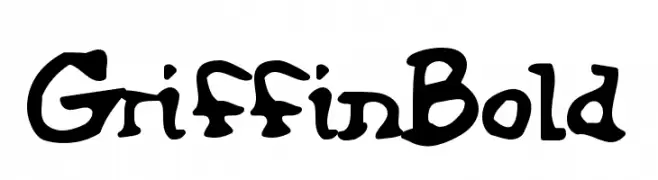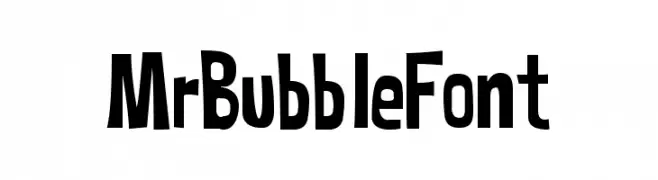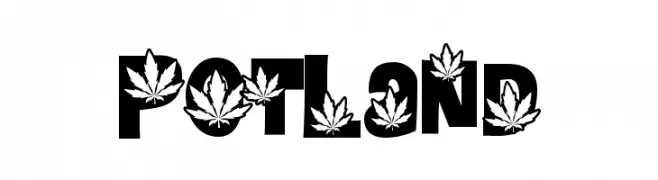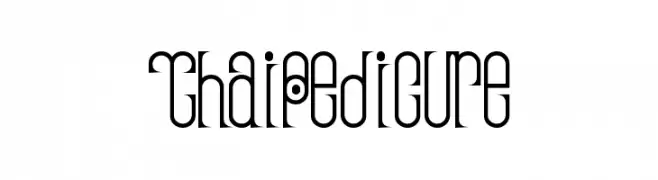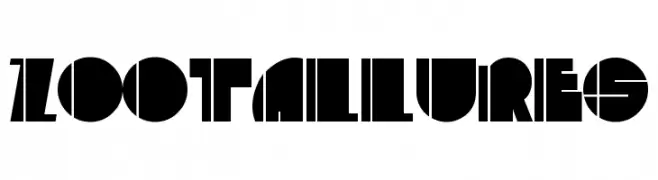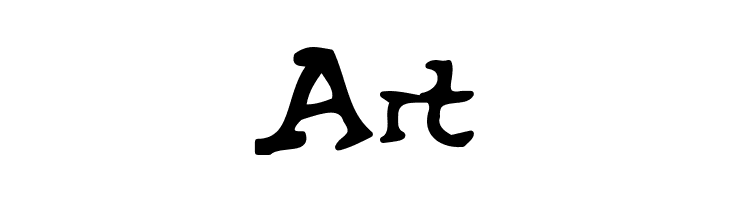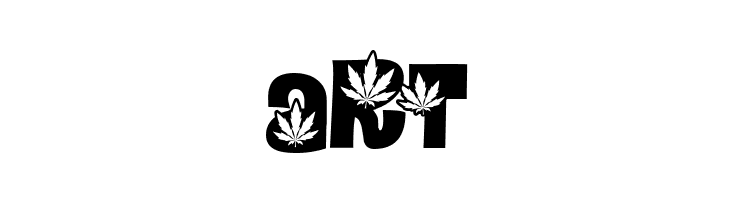
A bold, decorative font with intricate patterns and thick outlines.
A bold, decorative font with characters resembling bones, perfect for thematic designs.
A bold, playful font with a whimsical and cartoonish style.
A bold, playful font with diamond-shaped backgrounds and slight serifs.
A bold, playful, and hand-drawn style font with a whimsical touch.
A bold, geometric font with a modern and futuristic style.
A bold, decorative font with leaf motifs on each character, perfect for playful and eye-catching designs.
A decorative font with elongated, narrow letterforms and circular motifs.
A bold, playful font with exaggerated, dynamic characters.
A bold, decorative font with punk rock influences and unique cut-out shapes.